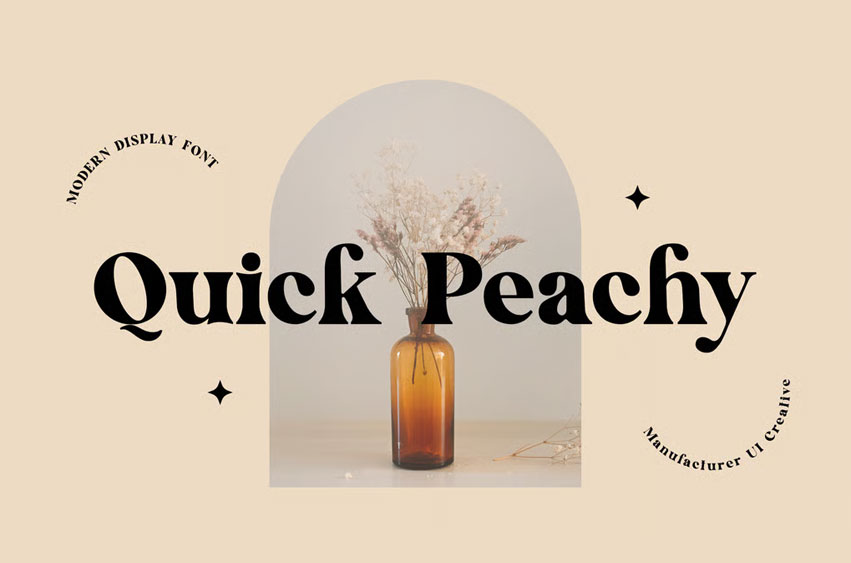
Quick Peachy Font
Quick Peachy Font Classic Serif font that feels beautiful classy, elegant, and modern. This font is perfectly suited for a wide variety of projects, such as signature, stationery, logo, wedding, typography quotes, magazine or book cover, website header, clothing, branding, packaging design, and more.
Also for fashion-related branding or editorial design and displays both masculine and feminine qualities.